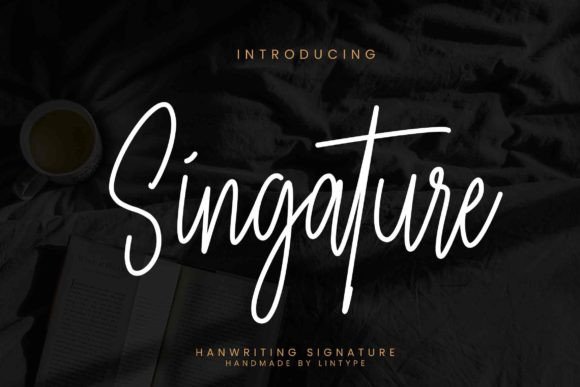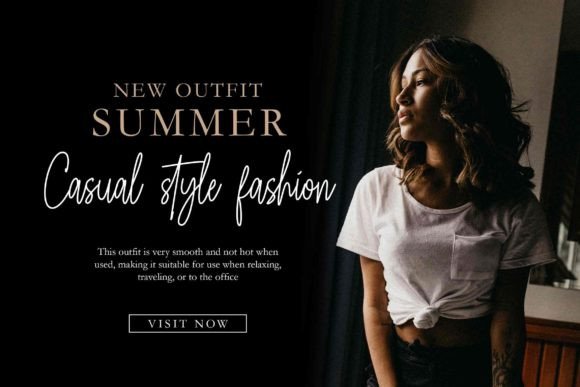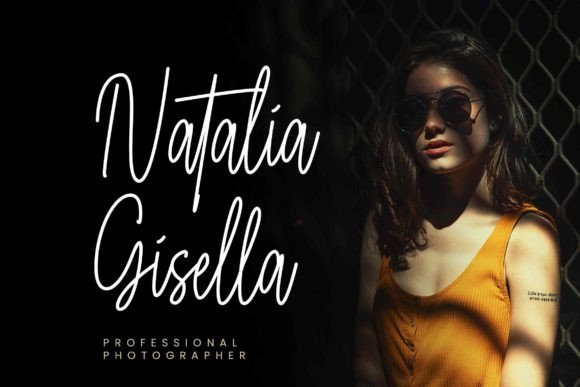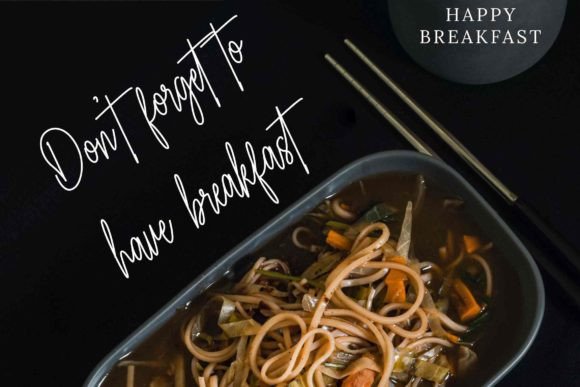
Singature is an elegant and minimalistic signature monoline font that’s perfect for making any design stand out! Each letter has a perfect character. This font is perfect for branding, wedding invitations, magazines, mugs, business cards, quotes, social media, posters, and more.